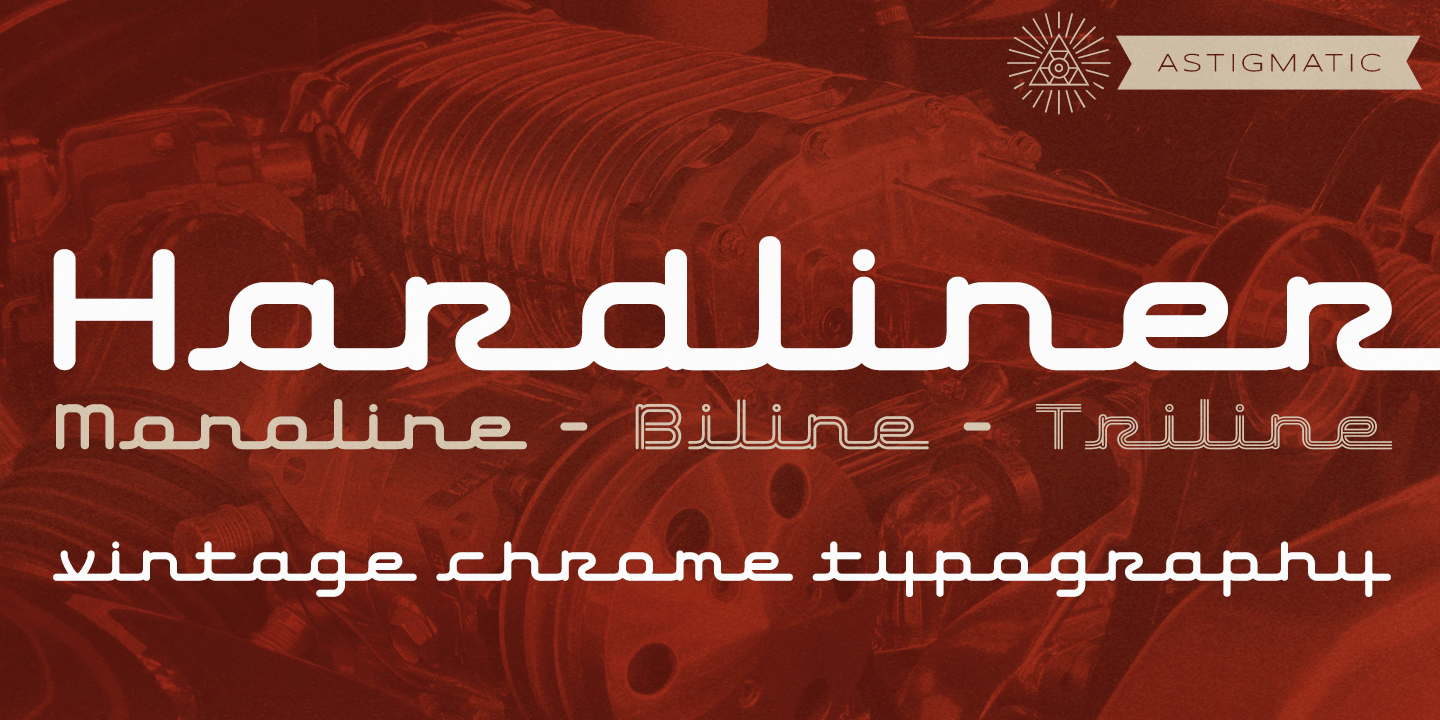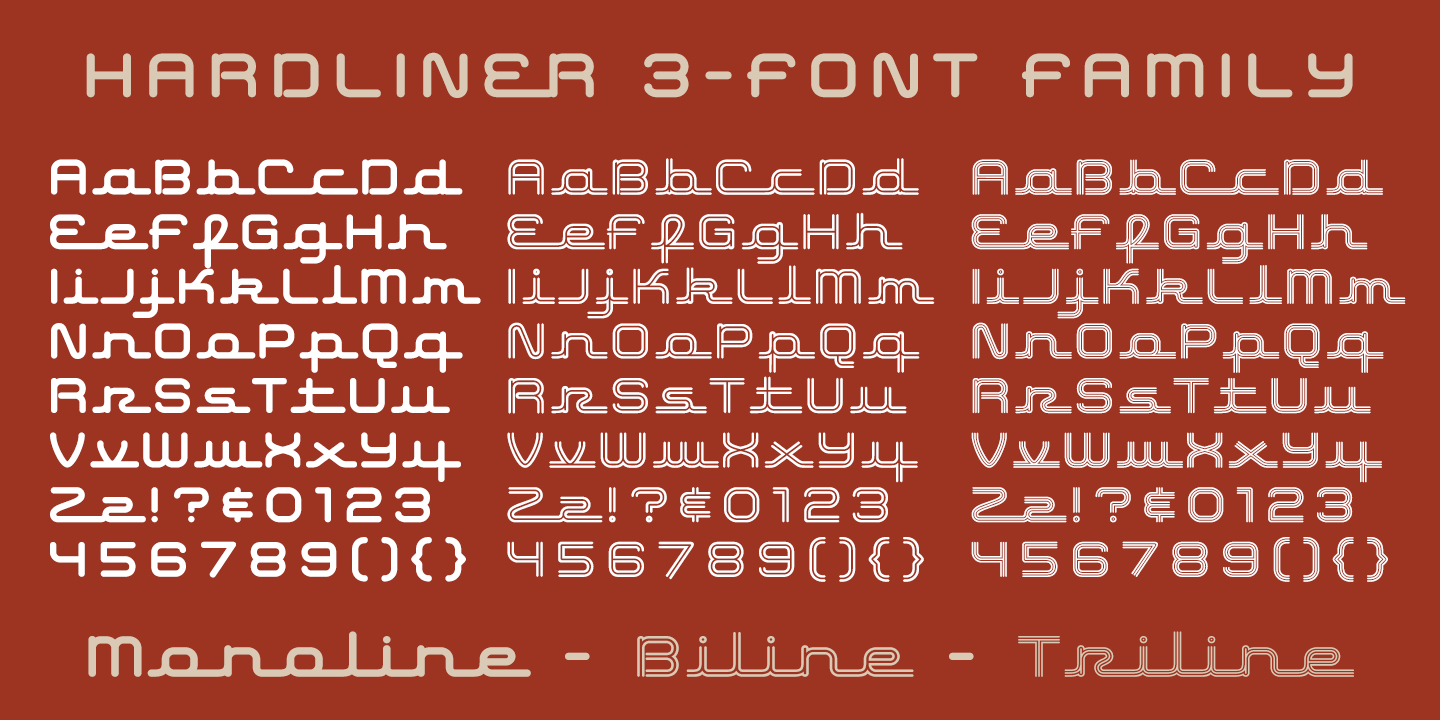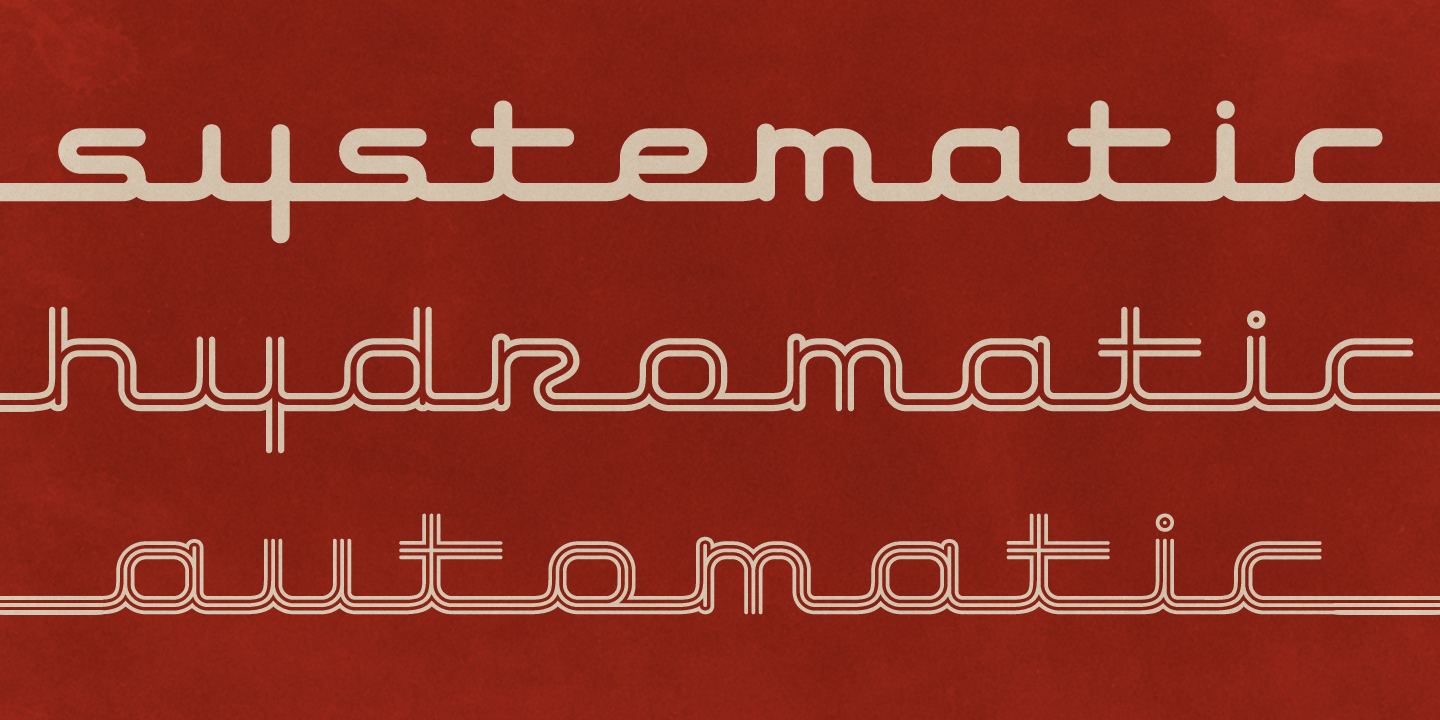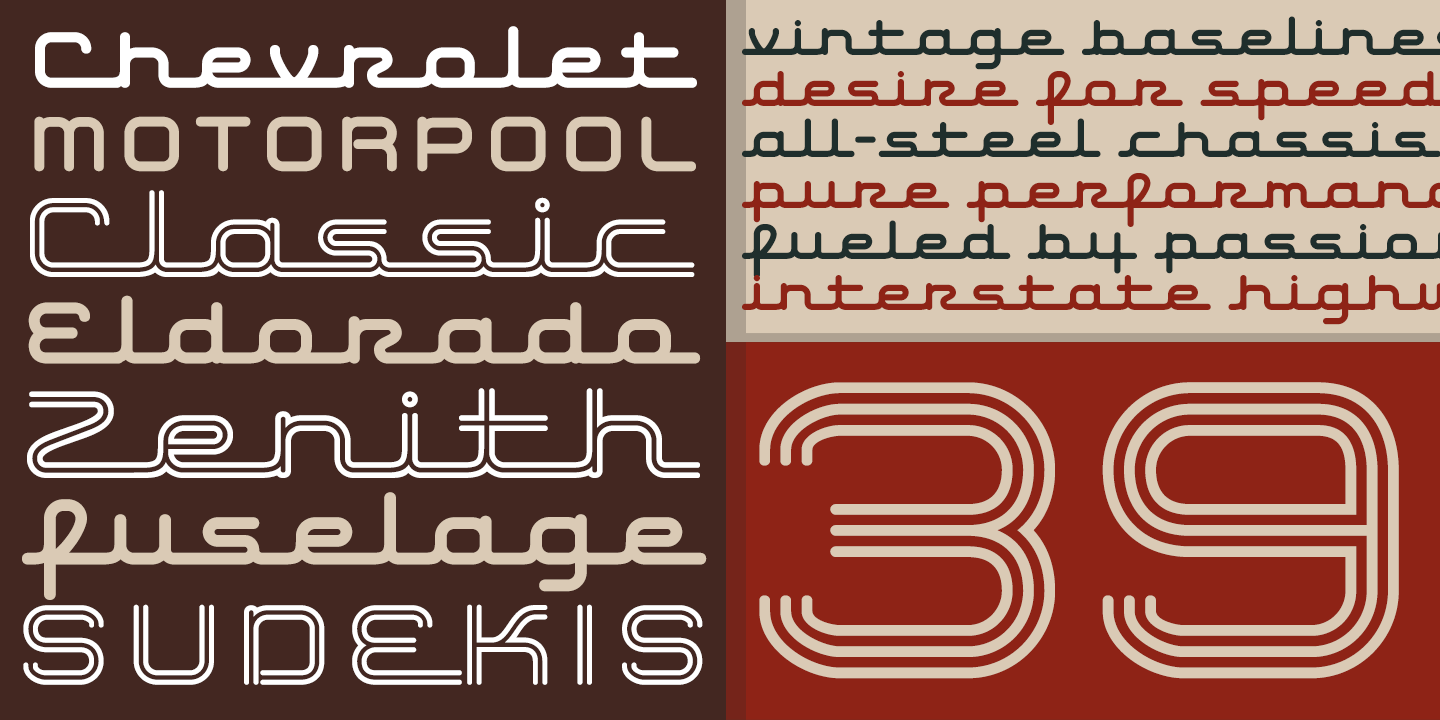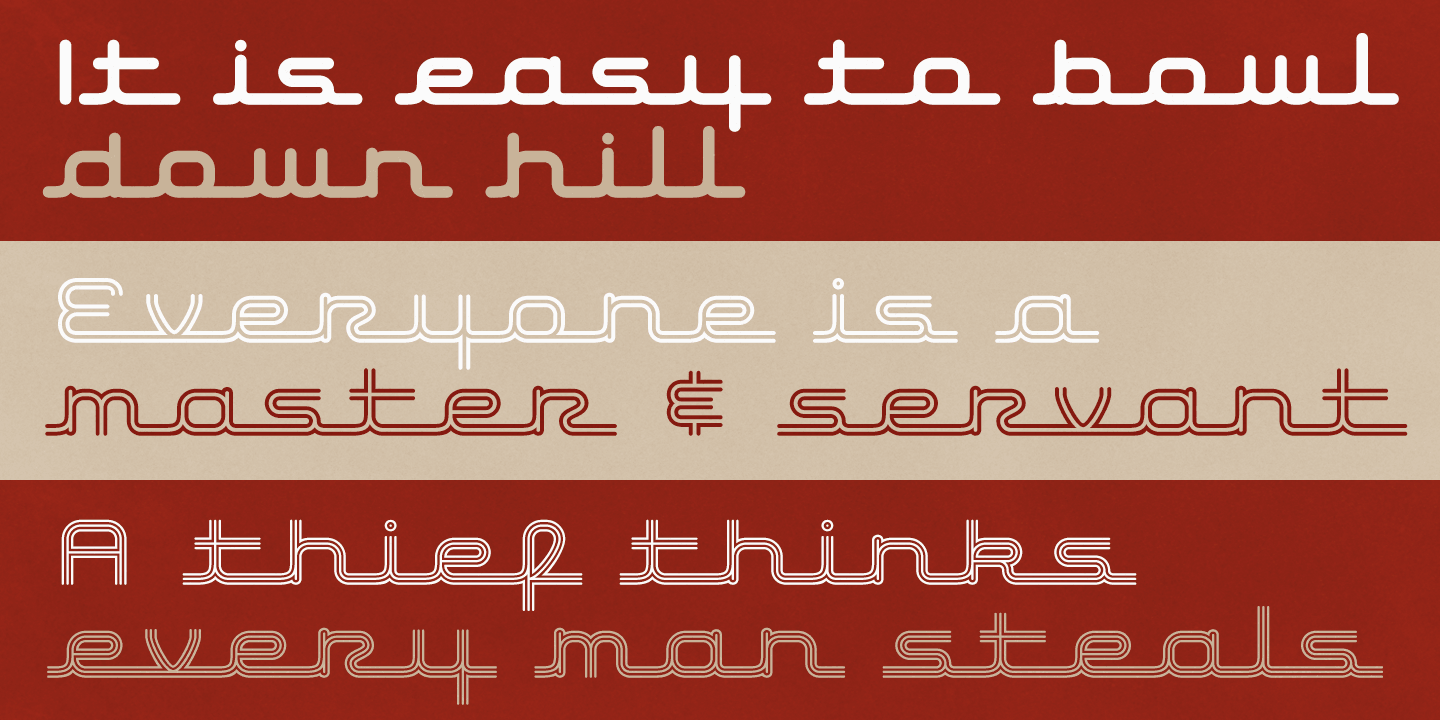
Hardliner AOE
Font Family by Astigmatic One Eye
The Hardliner Family is a series of connecting baseline script typestyles, each of a monostroke weight. The family comes complete with a full character set as well as three versions: a Monoline, a Biline, and a Triline. It has a sleek techno look, an athletic feel, and a striking presence to it perfect for a variety of designs! So if you are looking for a striking typeface, a connecting script typeface with a techno feel, or a new form of athletic appeal typestyle, then Hardliner is the perfect choice. Take your design to a new level today!